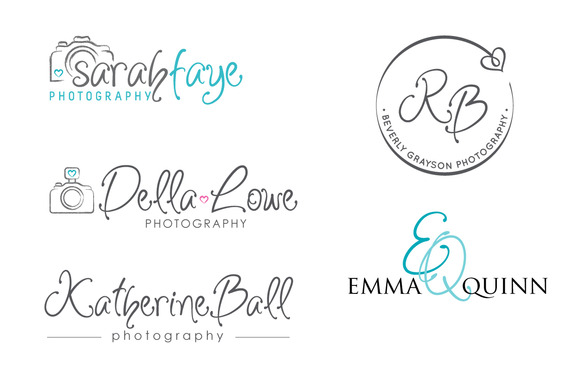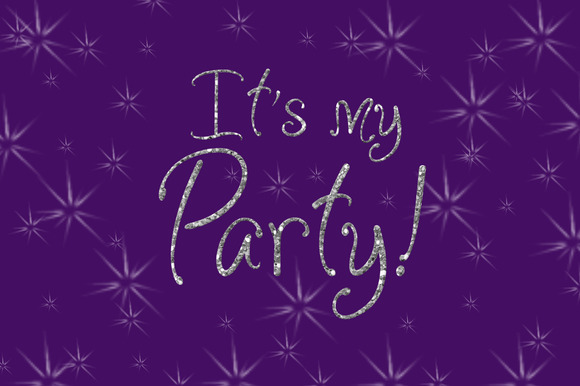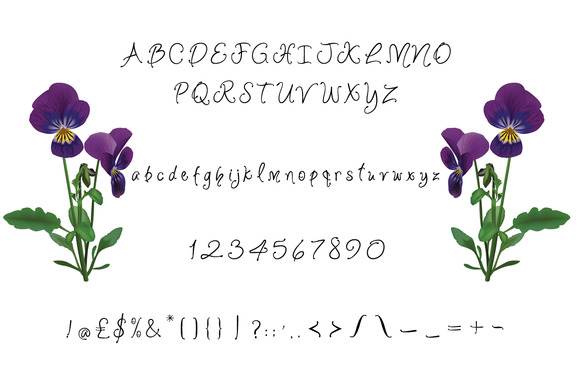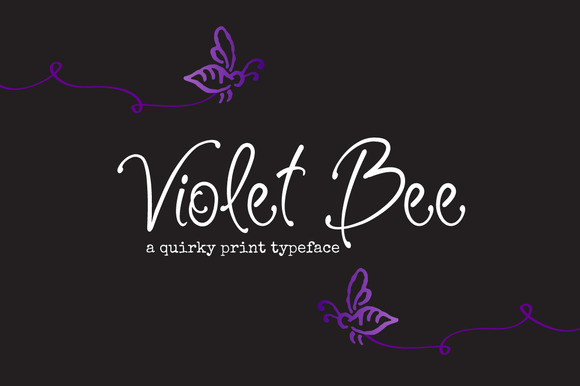
Violet Bee Font
Violet Bee is a hand drawn, quirky and fun looking font. It can be used for a wide range of projects, such as logo designs, party & wedding invitations, t-shirt designs, signs, magazine design, greetings cards, poster design and much more!